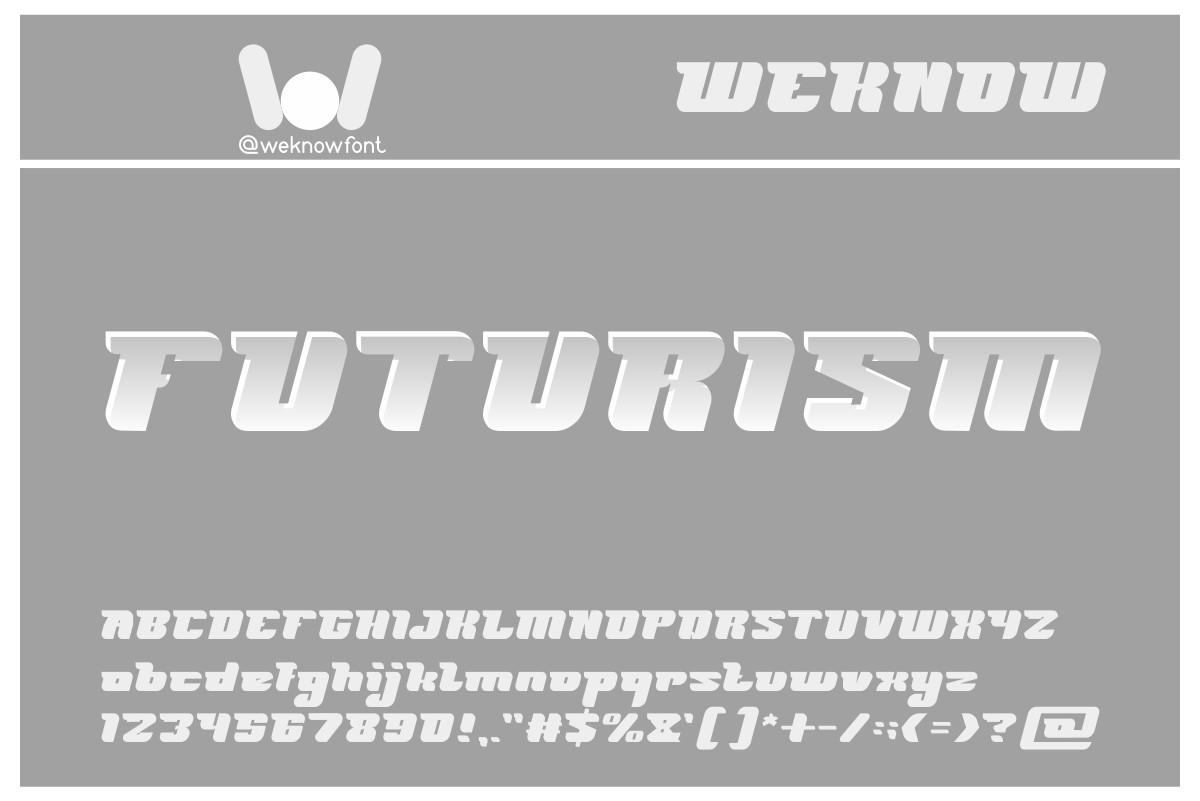
Futurism Font Description
Futurism is a techno sci-fi themes font, suit for logo, logotype, headline font, in corporate identity, brand identity, apparel industry, poster, music, movie, game, magazine, book, comic, cartoon, social media, website, or any of your creative design project.